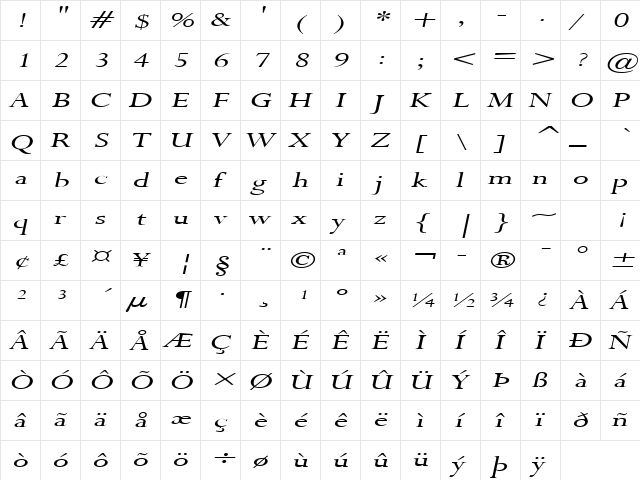
Rapid Extended Italic
Design Context for Rapid Extended Typeface
Rapid Extended offers clean, dependable letterforms without strong stylistic allegiance, making it a practical choice for designers who need flexibility. The dynamic lean of this cut emphasises speed and emphasis in any layout.
Pro Tip: Use Rapid Extended for emphasis, pull quotes, and subheadings where its slanted energy can add rhythm to the layout.